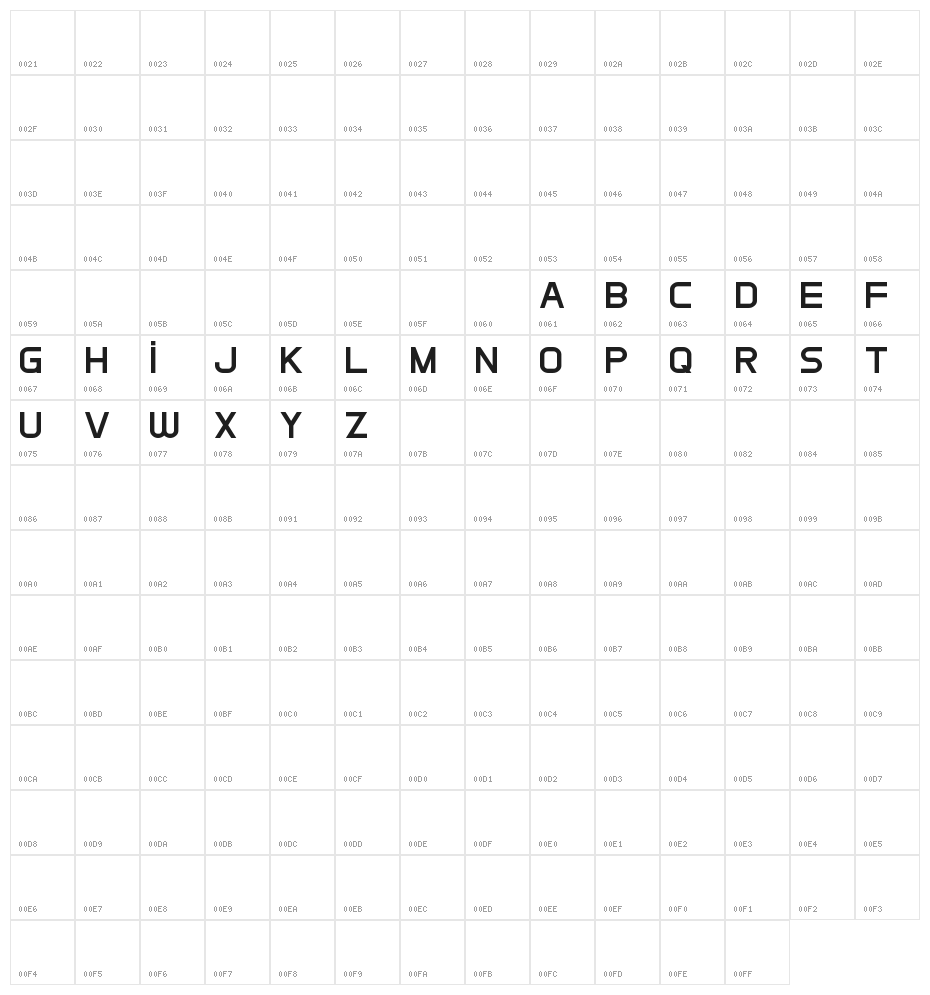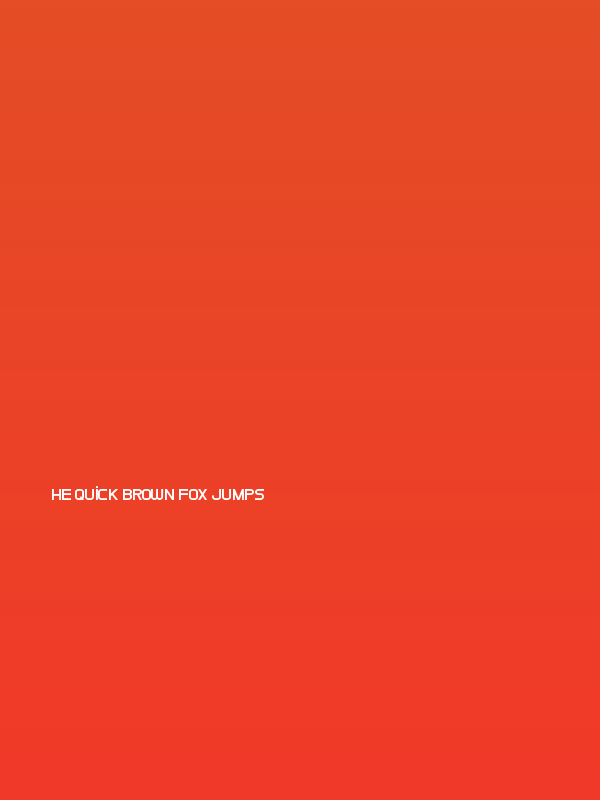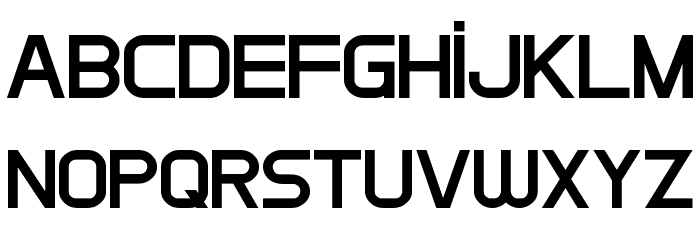
Cerena Font
Cerena Description
This font features a modern and geometric design with clean, straight lines and a uniform stroke width. The characters are bold and have a slightly condensed appearance, giving them a compact and efficient look. The uppercase letters are particularly striking, with a consistent height and width that create a harmonious and balanced appearance. The font's design is minimalistic, with no unnecessary embellishments, making it suitable for a wide range of applications. The overall style is contemporary, with a focus on clarity and readability, making it ideal for both digital and print media.
Use CaseHeadlines, Logos, Digital Interfaces
Proposed ProjectsIdeal for branding, advertising, headlines, and digital interfaces where clarity and modernity are key.